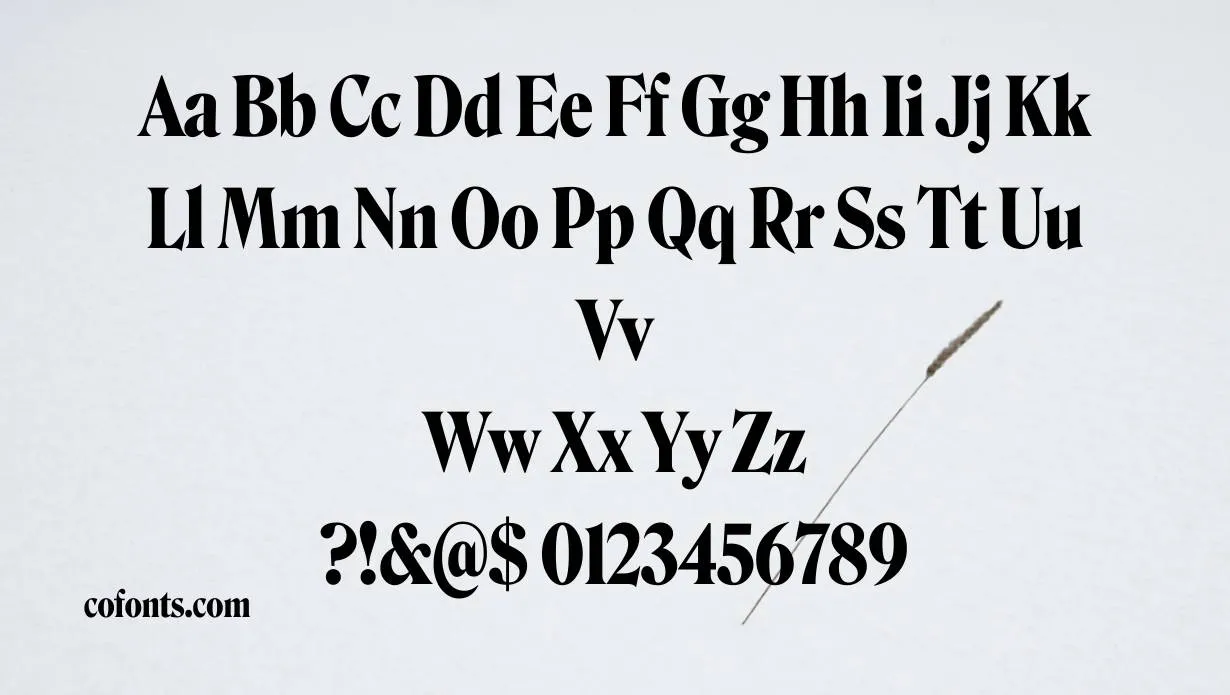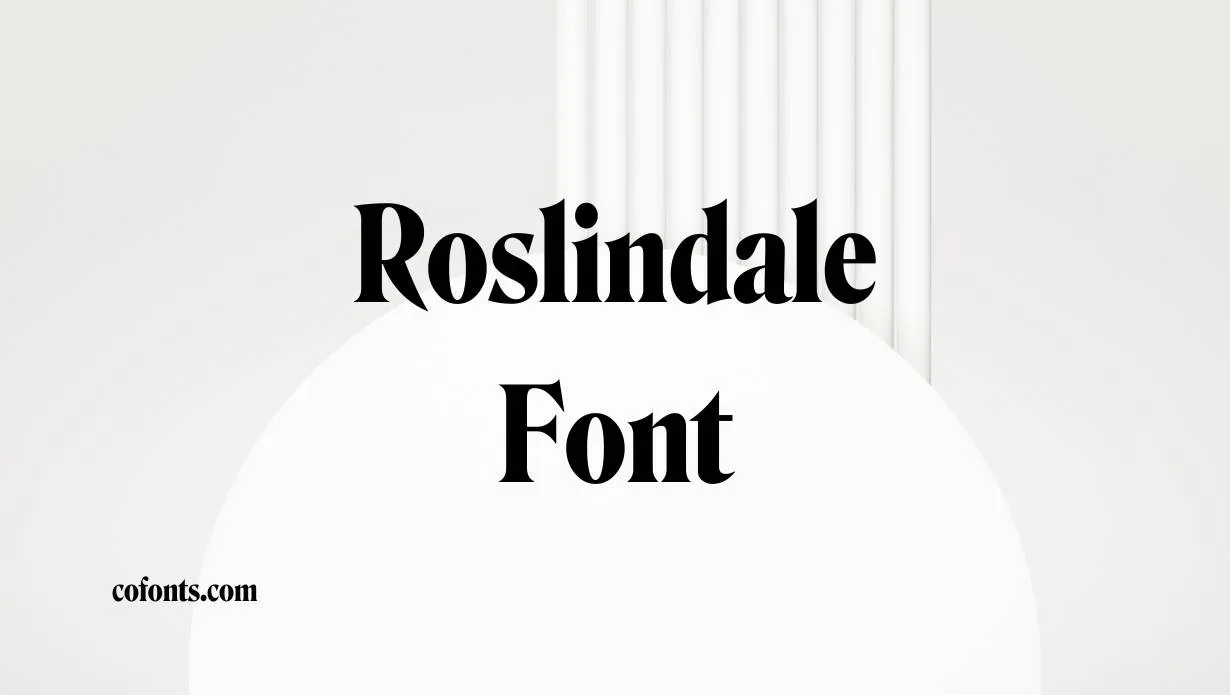
In this post, we introduce Roslindale Font which was designed by David Jonathan Ross. It is a serif typeface with strong contrast and flared serifs. The design is inspired by early 20th-century advertising typefaces.
This stylish font is available in seven weights from Extra Light to Black, with matching italics. It includes a wide range of ligatures, fractions, superscripts, and subscripts. The fonts are fully hinted at for superior legibility onscreen. Its copy-and-paste function is classic. Another similar font which is desire pro font is perfect for different designs.
Usage of Roslindale Font
In different higher offices, this Typeface is used for making important documents as the fonts in Roslindale are very easy to read and look great too. Different writers also use this font for their book covers, writing articles, and many other writing purposes.
Name | Roslindale Font |
Style | Serif |
Designer | David Jonathan Ross |
What is the type of Roslindale Font?
The type of this font is a serif typeface with strong contrast and flared serifs. The design is inspired by early 20th-century advertising typefaces.
Who is the designer of Roslindale Font?
This font was designed by David Jonathan Ross. Roslindale Typeface is available in seven weights from Extra Light to Black, with matching italics.